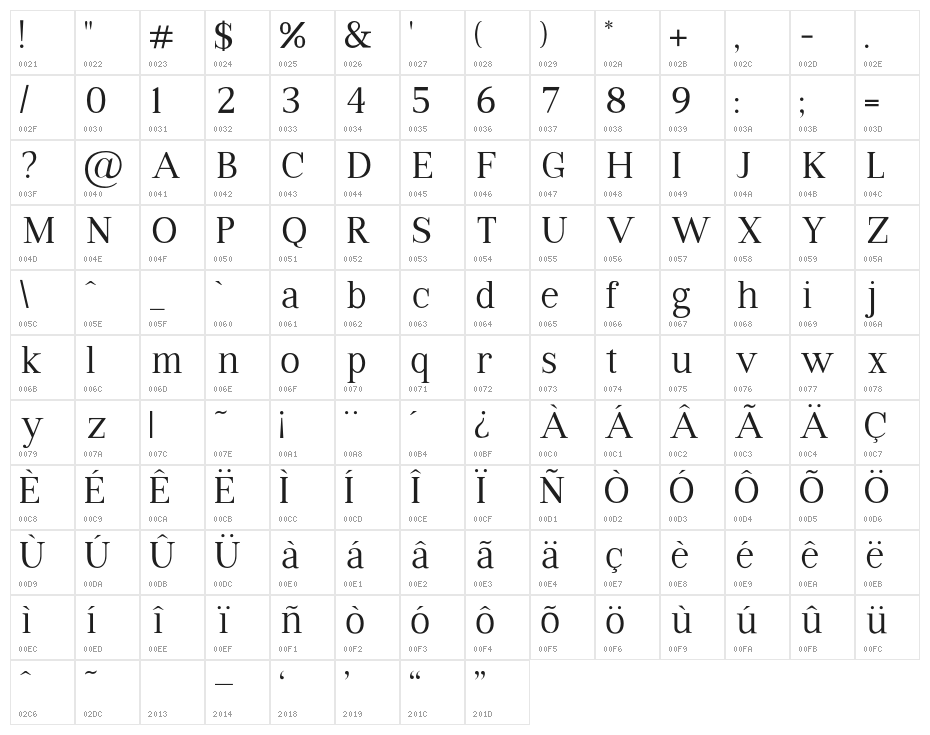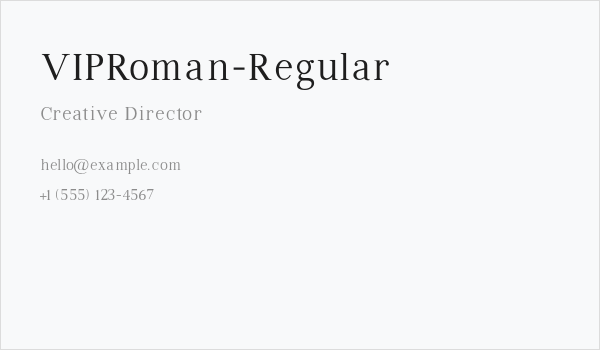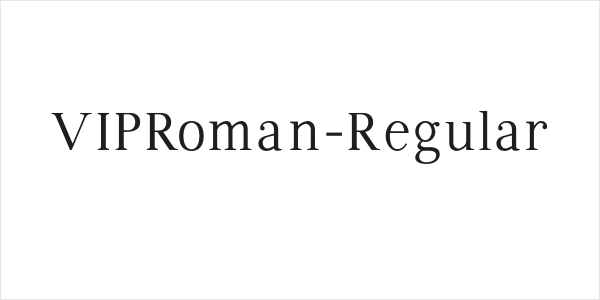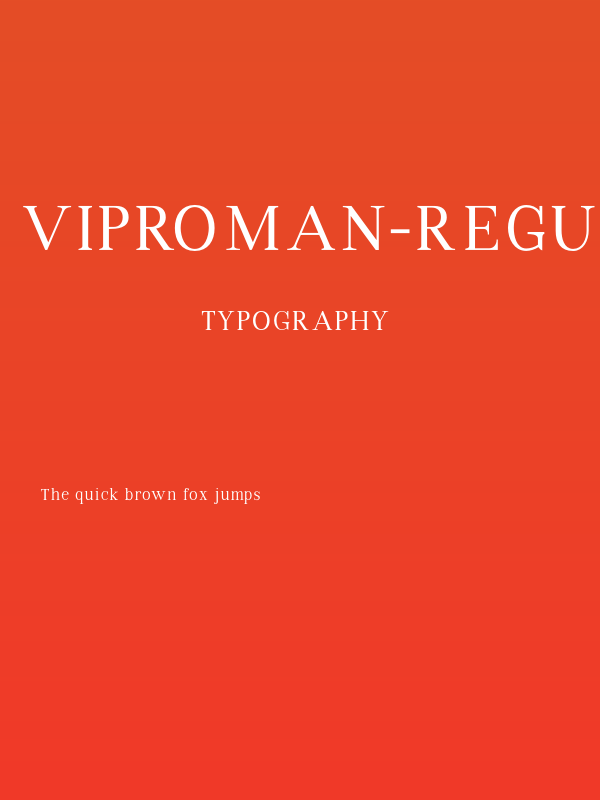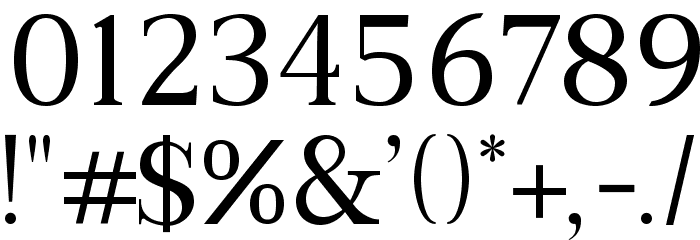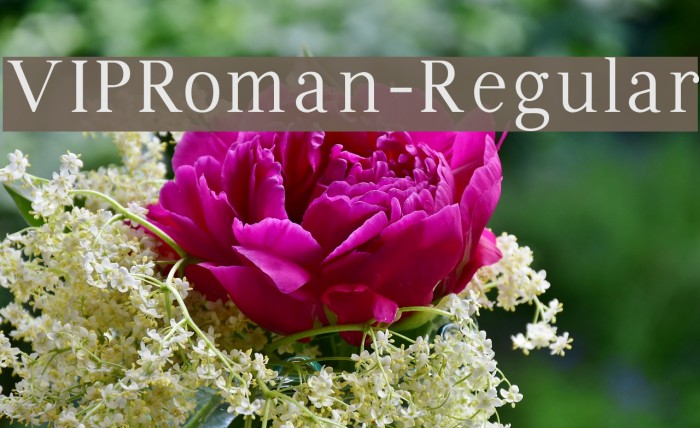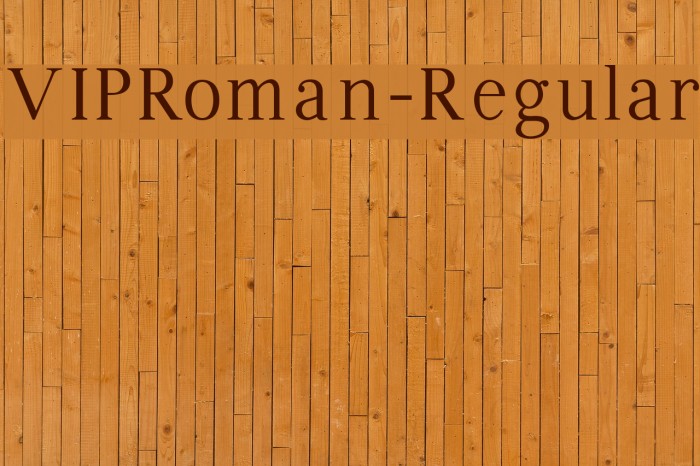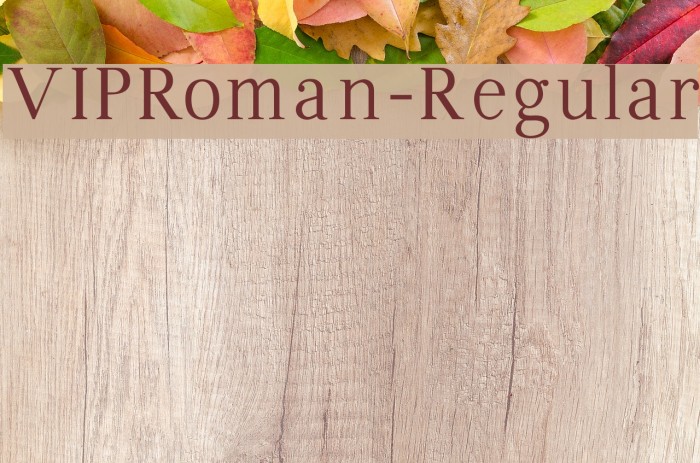
VIPRoman-Regular Font
VIPRoman-Regular Description
This font exhibits a classic and elegant serif style, characterized by its refined and balanced letterforms. The serifs are pronounced yet not overly ornate, providing a timeless appeal suitable for a variety of applications. The uppercase letters are tall and stately, while the lowercase letters maintain a harmonious flow. The numerals are clear and easily distinguishable, making them ideal for both text and display purposes. Special characters are well-integrated, ensuring versatility in usage. Overall, this font combines traditional aesthetics with modern readability.
André Uenojo - www.behance.net/AndreUenojo
| Proposed Projects | Ideal for editorial design, book covers, formal invitations, and branding projects requiring a touch of sophistication. |